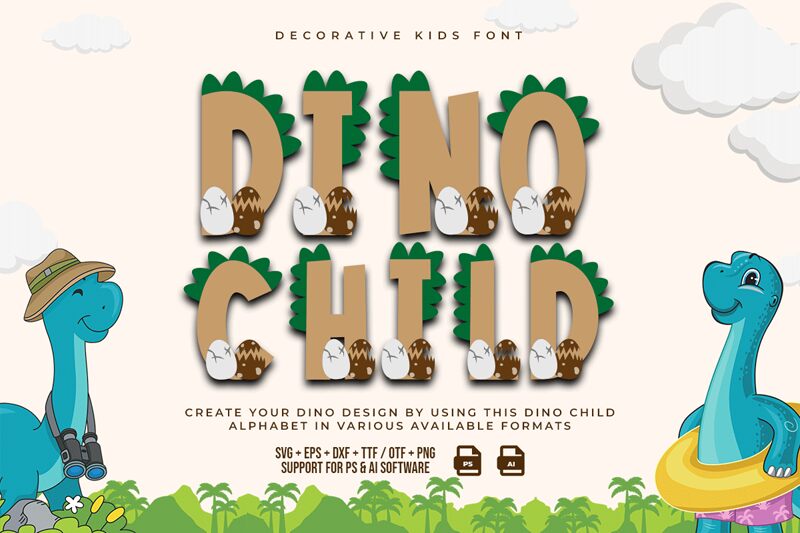
Dino Child font by Kong Font is a free decorative typeface that evokes a charming, childlike wonder. Cutesy, whimsical, and textured, this is a truly thematic font that is engaging, child-friendly, and eye-catching. The font gets its name from the shapes and themes used that appear prehistoric but in a playful and stylish way. Dino Child is the perfect addition to all your design projects that have a focus on engaging children or youth!